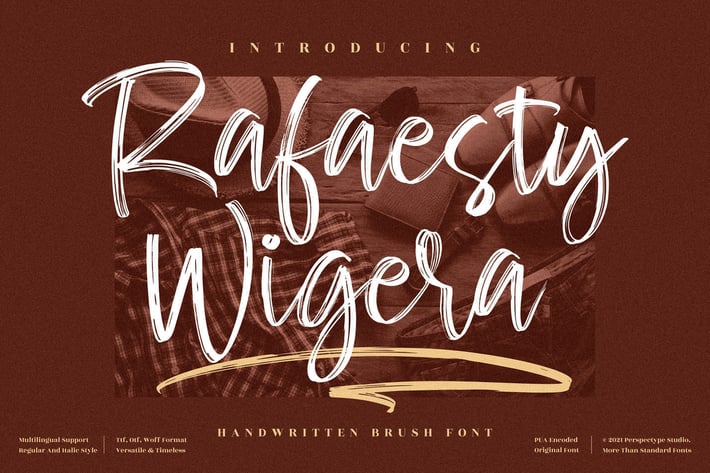
Rafaesty Wigera Brush Font
Rafaesty Wigera is a bold handwritten brush font with energetic strokes and a rebellious spirit. Crafted for creatives who want to make a statement, this font is perfect for bold branding, eye-catching quotes, social media posters, and merchandise design.
Its organic brush texture and stylish rhythm bring personality and power to every project—while maintaining readability and flow.
Regular & Italic versions
Natural brush texture
Uppercase, lowercase, numerals & punctuation
Perfect for:
+ Branding for fashion, music, or streetwear
+ Social media posts & quote cards
+ Product packaging & merchandise
+ Posters, banners, and campaign visuals
Make your message bold and unforgettable with Rafaesty Wigera.